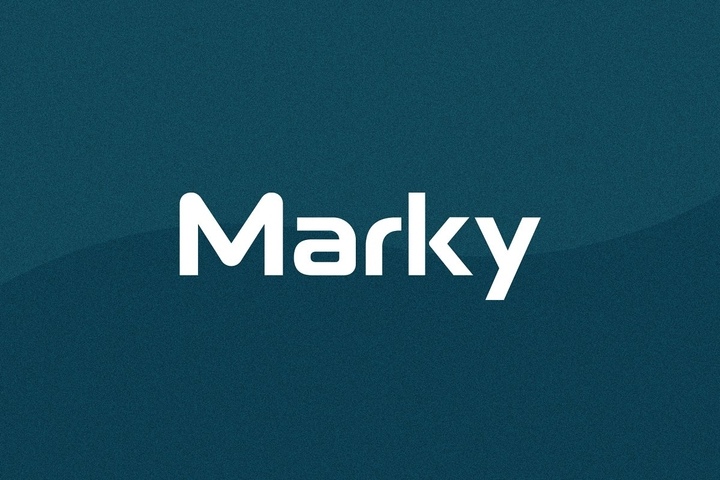
Marky - Logo Design Font
Marky - Logo Design Font is perfect for brand identity systems, corporate logo creation, startup company branding, product packaging designs, professional business cards, marketing campaign headers, social media brand graphics, website logo design, company merchandise, and trademark applications.
What makes Marky - Logo Design Font so exciting is its exceptional versatility and professional precision specifically engineered for creating memorable brand identities that stand the test of time and market competition. This strategic typeface combines clean readability with distinctive character, featuring letterforms that are both instantly recognizable and highly scalable across all branding applications. The font's purposeful design elements perfectly balance uniqueness with universal appeal, creating the ideal foundation for logos that need to communicate professionalism, trustworthiness, and brand authority while remaining memorable and visually striking in competitive marketplaces.
Marky - Logo Design Font comes in multiple font families including Regular, Bold, Light, Italic, Bold Italic, Condensed, Extended, and Display variations. Each family member maintains the core branding characteristics while offering different impact levels and stylistic approaches to suit various corporate design requirements.
The Marky - Logo Design Font Free Download offers designers and entrepreneurs an incredible opportunity to access professional-grade typography specifically optimized for brand creation and logo development. This remarkable typeface distinguishes itself through its unique ability to communicate themes of reliability, innovation, and market leadership. Whether you're developing startup identities, creating corporate rebranding projects, or designing product line logos, this font ensures your brand mark conveys the professional credibility and memorable presence that successful businesses require.
The strategic legibility in Marky - Logo Design Font makes it particularly effective for companies across all industries where clear brand communication and instant recognition are essential for market success. Its adaptable letterforms work exceptionally well at both large display sizes and small application formats, ensuring consistent brand impact whether used on billboards or business cards.
Branding professionals recognize how Marky - Logo Design Font transforms ordinary company names into powerful brand statements that command market respect and customer recognition. The typeface's professional character set includes comprehensive punctuation and symbol support that accommodates complex brand naming requirements and international market applications.
For creative professionals specializing in brand development, corporate identity, and logo design, Marky - Logo Design Font serves as the ultimate foundation for creating memorable visual identities that capture the essential qualities of professional excellence, market authority, and brand distinction that define successful companies in competitive business environments.